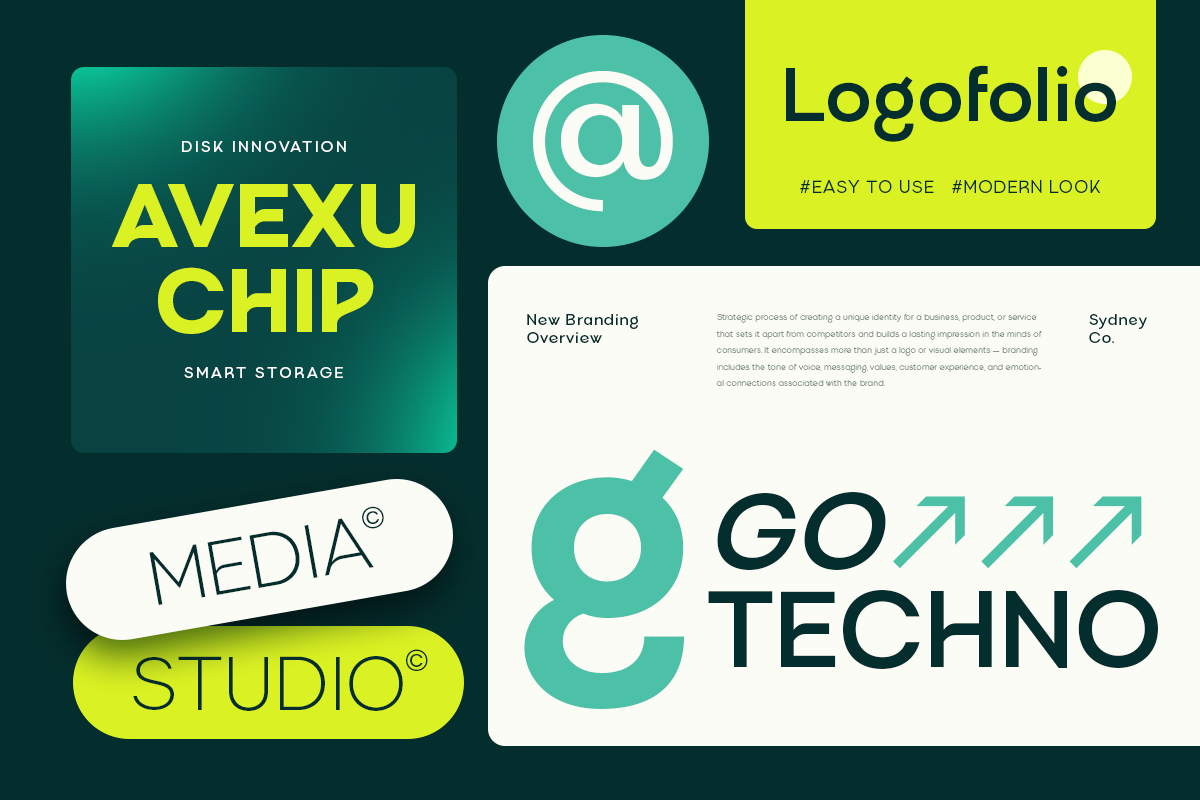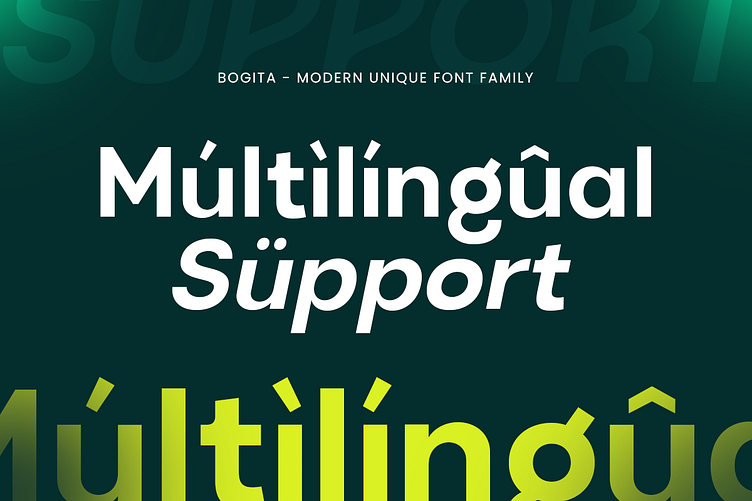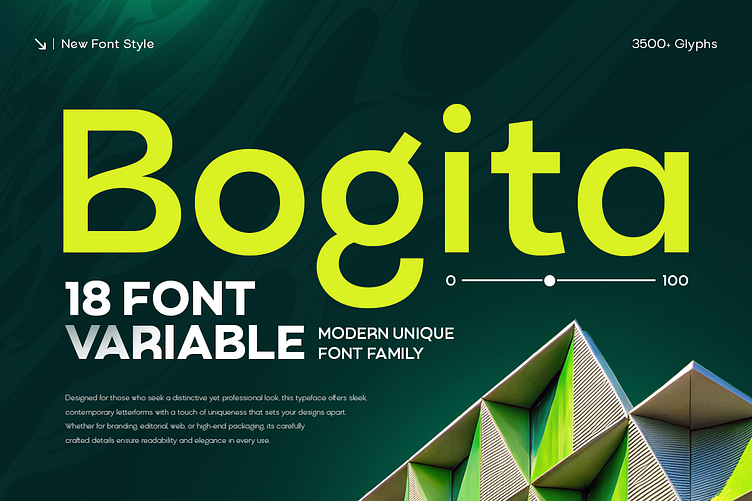
Bogita – Stylish Modern Font for Bold Brand Identities 💡
Say hello to Bogita, a modern font family crafted to help brands look bold, stylish, and unforgettable. With a unique blend of sharp details and smooth structure, Bogita – Modern Unique Font Family was designed to bring character and clarity to every logo and identity it touches.
🧬 The Story Behind Bogita
We designed Bogita to give creatives a fresh alternative to overly generic corporate fonts. With its distinctive shapes, balanced geometry, and versatile weights, Bogita brings just enough personality to stand out—without sacrificing professionalism. It’s perfect for modern brands, bold logos, high-end presentations, and businesses that want a confident yet refined visual voice.
✨ Why Bogita?
✔ Modern yet unique—perfect for standout identities
✔ Professional feel for corporate and digital branding
✔ Versatile font family for logos, packaging, and web
Branding showcase using Bogita font in various tech-related identities.
NEVORA SPACE architecture logo using Bogita font in bold style.
Bogita font family with 18 variable styles and over 3500 glyphs.
Editorial layout using Bogita font in magazine or booklet design.
Sample paragraph showcasing Bogita font in editorial layout.
Promo layout on smartphone screen featuring Bogita font
Bold yellow layout highlighting unique font family characteristics
Billboard advertisement featuring furniture brand with Bogita font.
Direction sign mockup using Bogita font in bold for public wayfinding.
Yield farming crypto website header using Bogita font in bold layout
Font weight preview of Bogita with 18 variable styles and italics.
Grand office meeting poster using Bogita font for clean bold typography.
Diagram showing letter anatomy and uniqueness of Bogita font design.
Alphabet set A–Z of Bogita font in full display
Bogita font showing numbers and punctuation character set
Multilingual support preview for Bogita font family